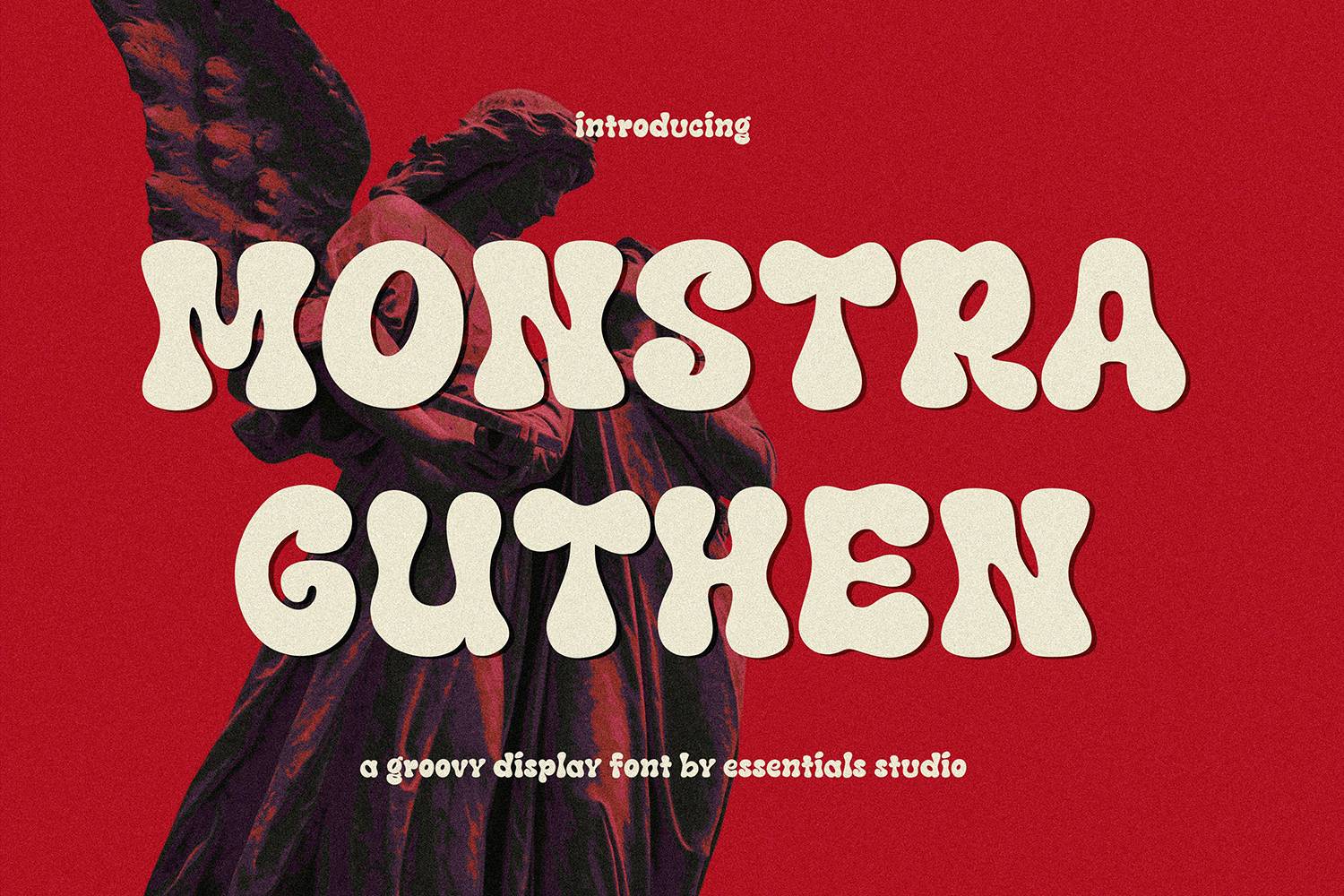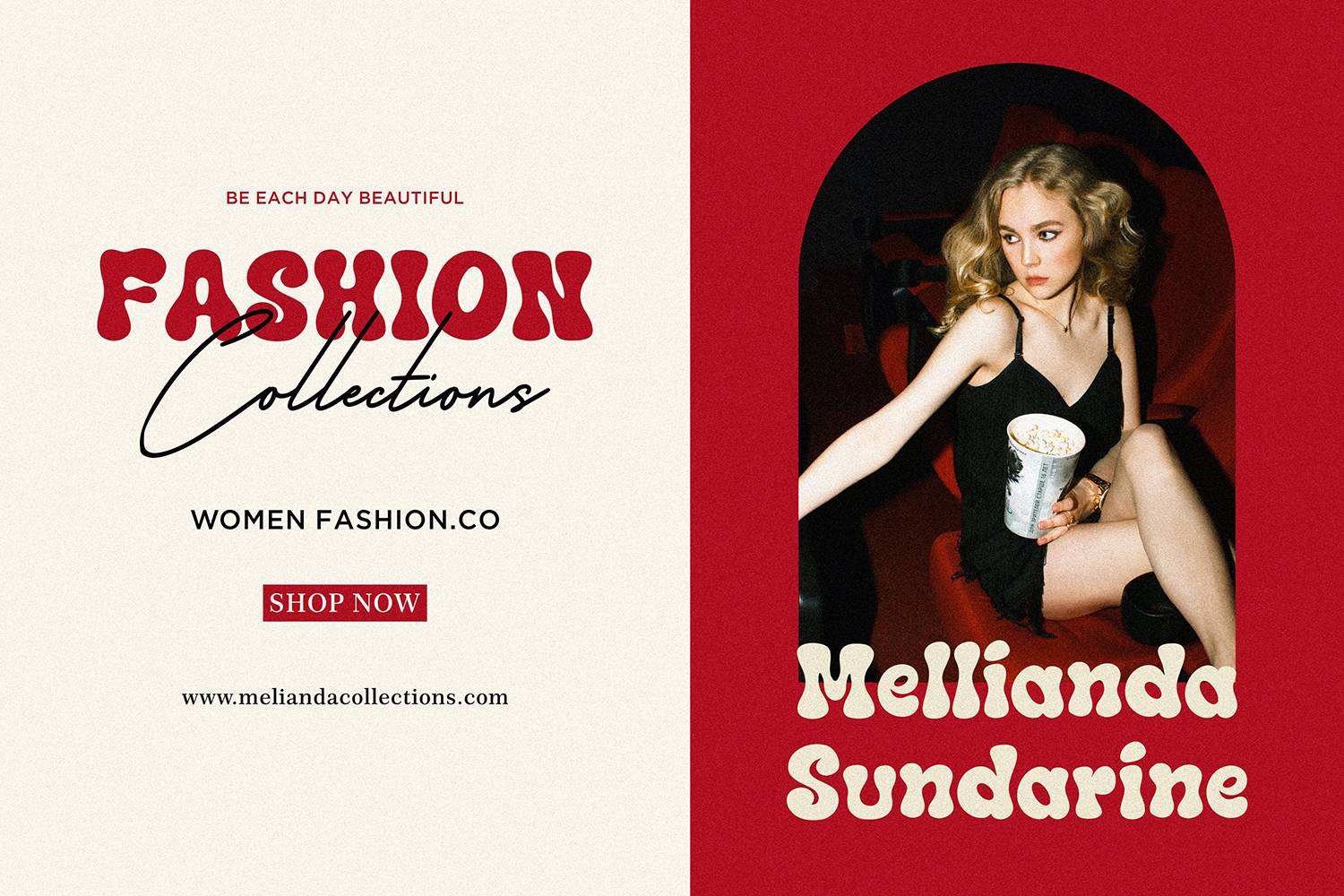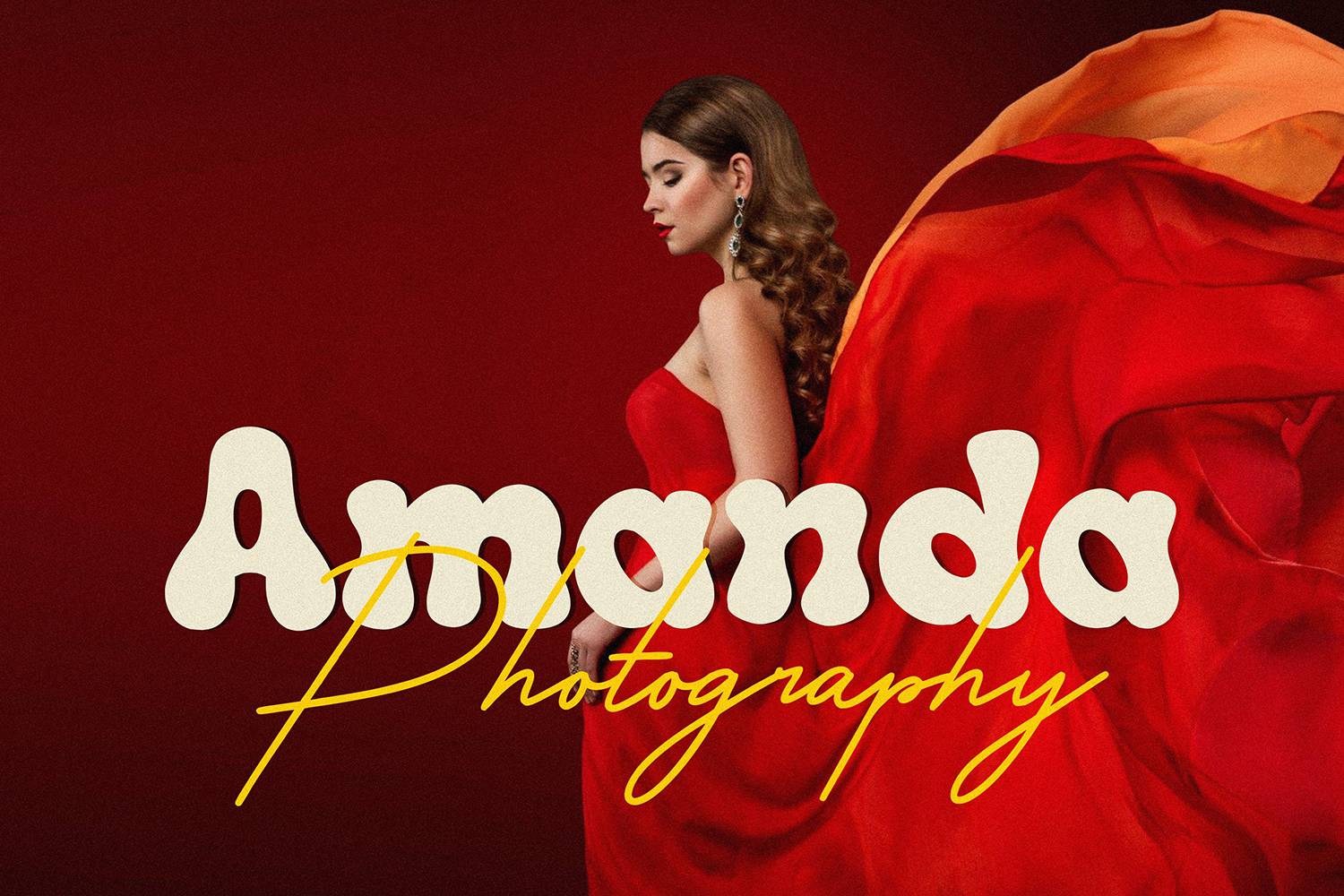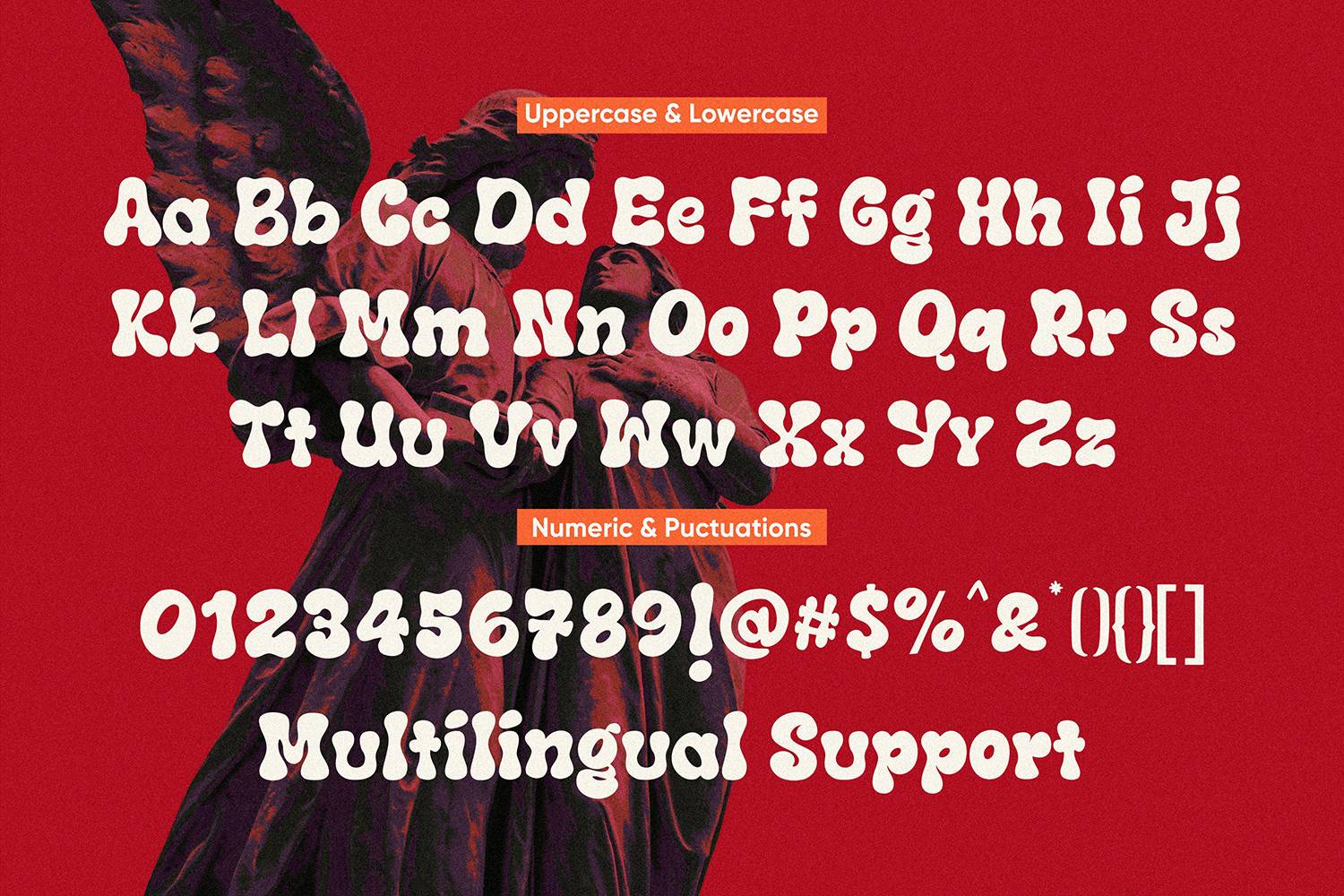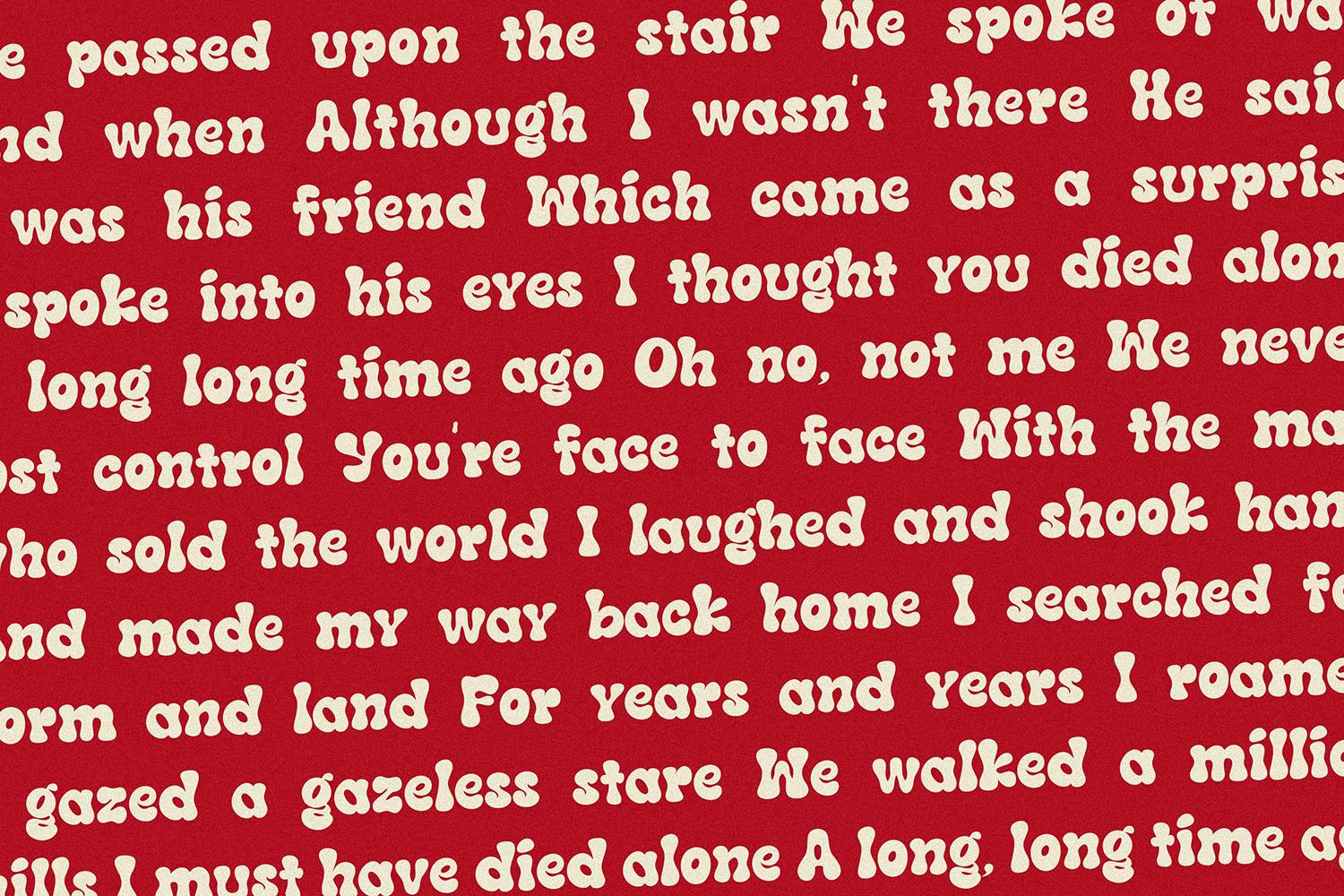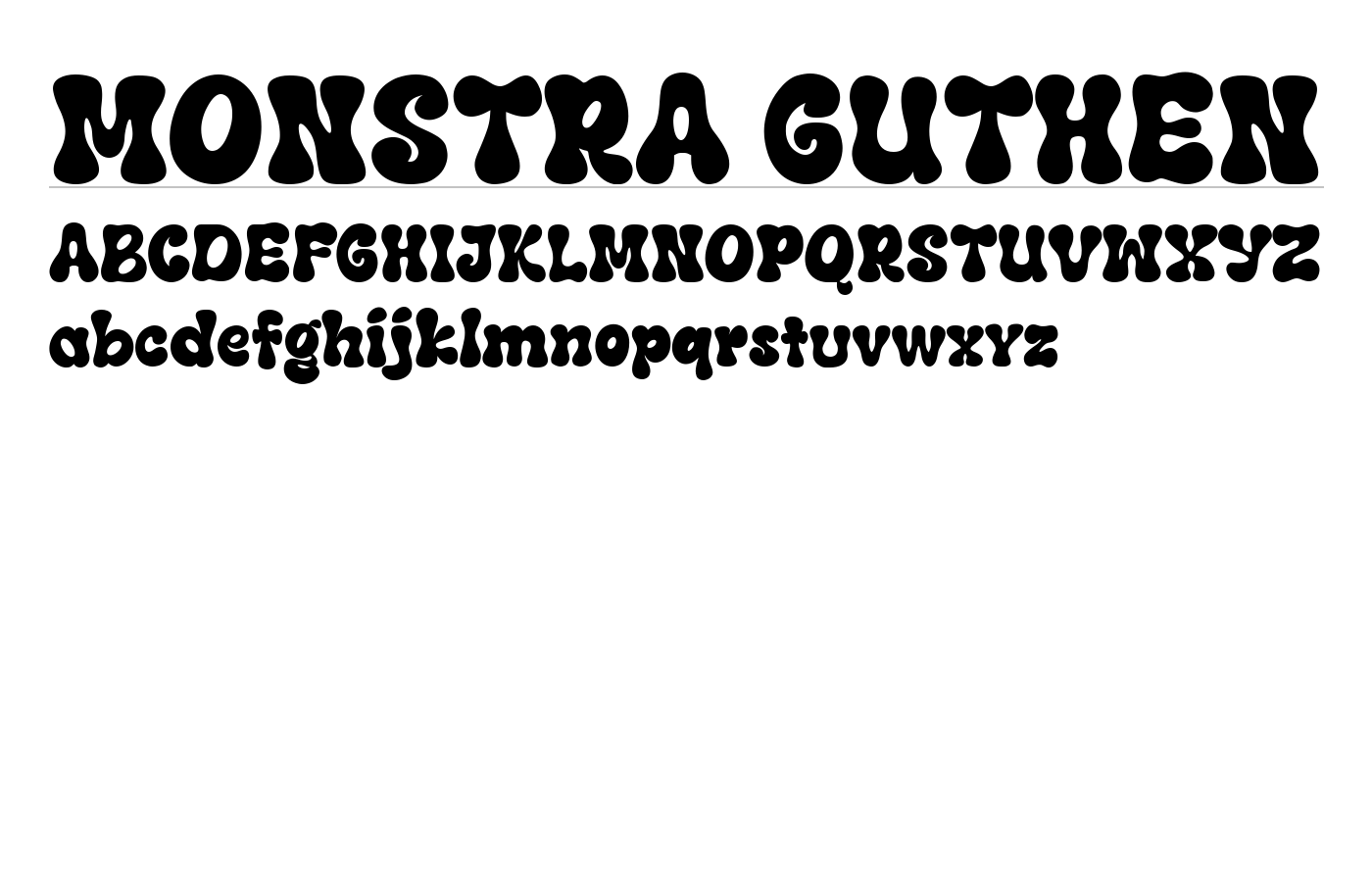
Monstra Guthen is a bold, playful display font with soft, rounded shapes that create a bubbly and approachable feel. Its thick, even strokes and high x-height make it eye-catching and highly readable for fun, informal designs, perfect for logos, posters, and creative branding that wants to stand out with a friendly, whimsical vibe.
Monstra Guthen Font
About Monstra Guthen Font
| Font family | Monstra Guthen Font |
| Designer | Sulthan Mada Maulana Tsani |